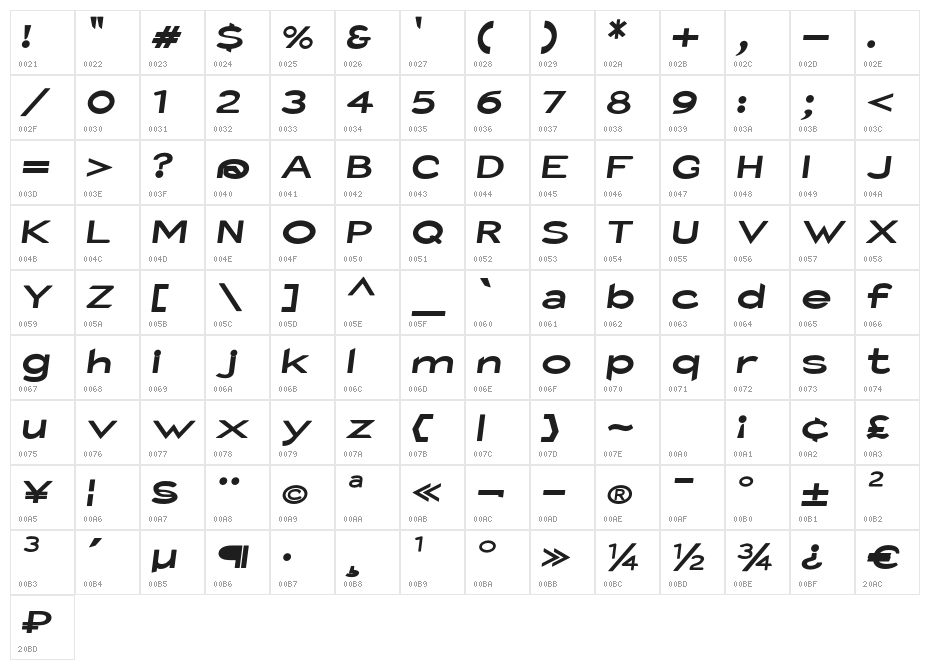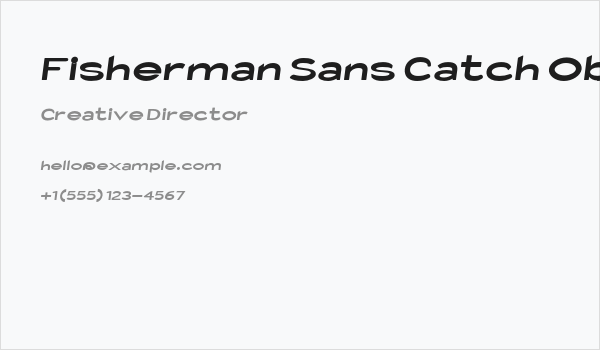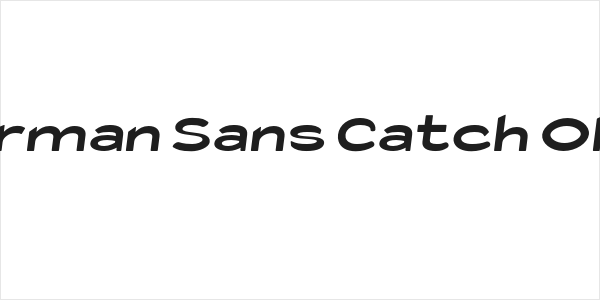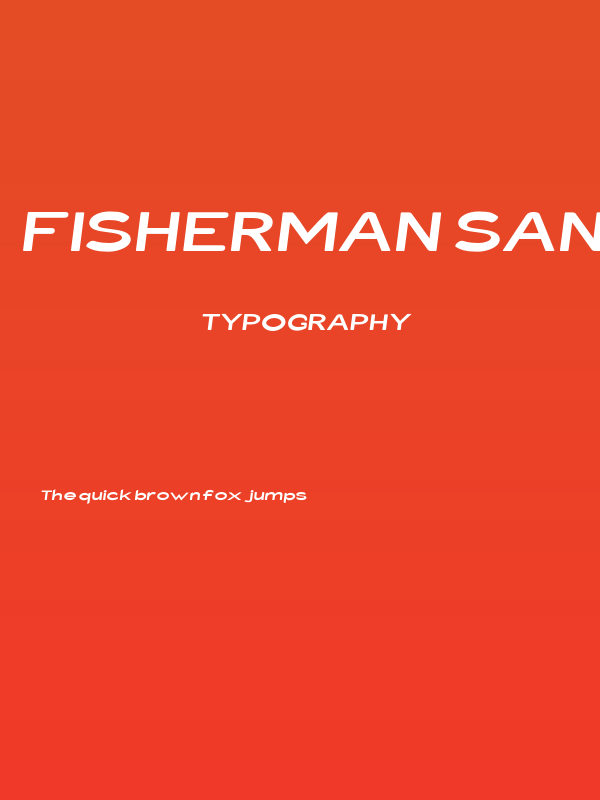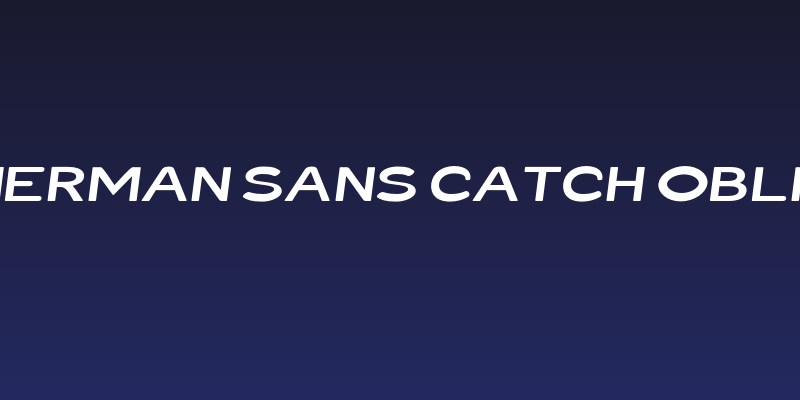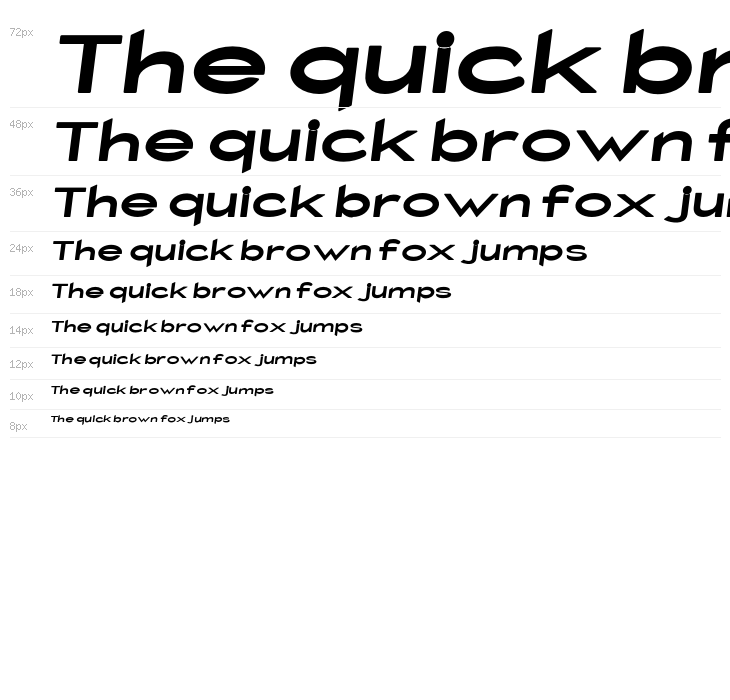
Fisherman Sans Catch Oblique Font
Fisherman Sans Catch Oblique Description
This font features a sleek and modern design with a slight oblique slant, giving it a dynamic and forward-moving appearance. The characters are crafted with smooth curves and clean lines, providing a sense of fluidity and motion. The uppercase letters are bold and assertive, while the lowercase letters maintain a consistent style that complements the overall aesthetic. The numerals are clear and easy to read, making them suitable for various applications. Special characters are included, maintaining the font's cohesive style. The overall design is versatile, making it suitable for both digital and print media.
| Use Case | Headlines, Logos, Digital Media |
| Proposed Projects | Ideal for branding, advertising, and digital media projects that require a modern and dynamic look. |